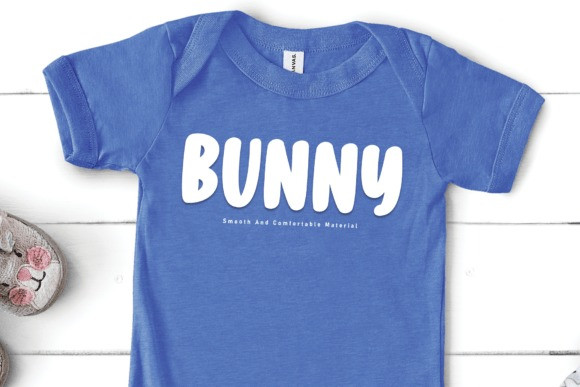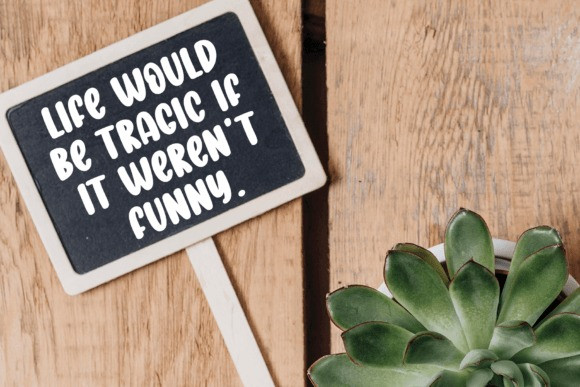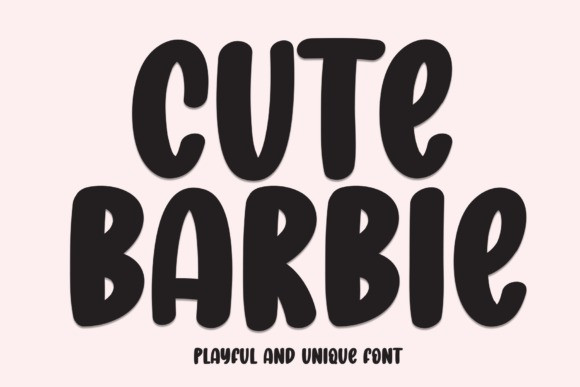
Cute Barbie Font
Cute Barbie Font is a fun and versatile display font. Whether you’re using it for crafting, digital designing, presentations, or greeting card making, it’s perfect!